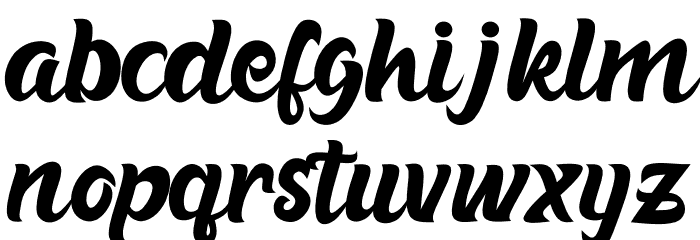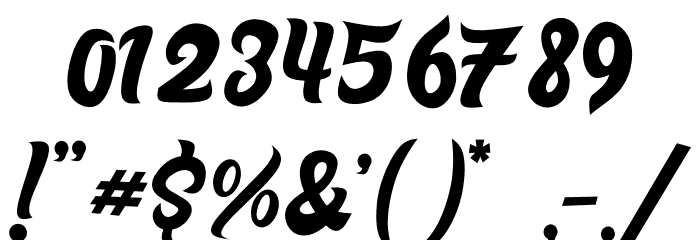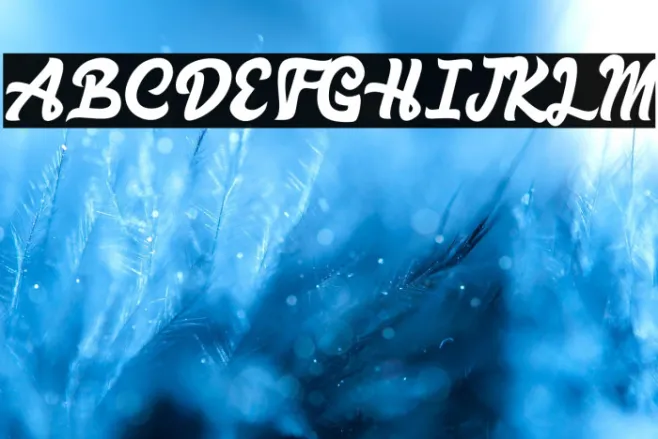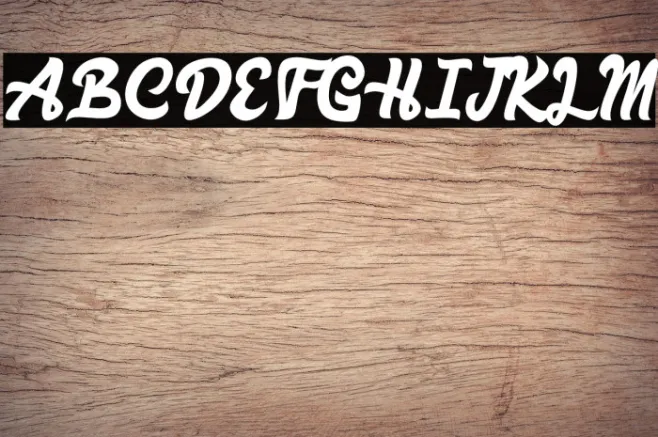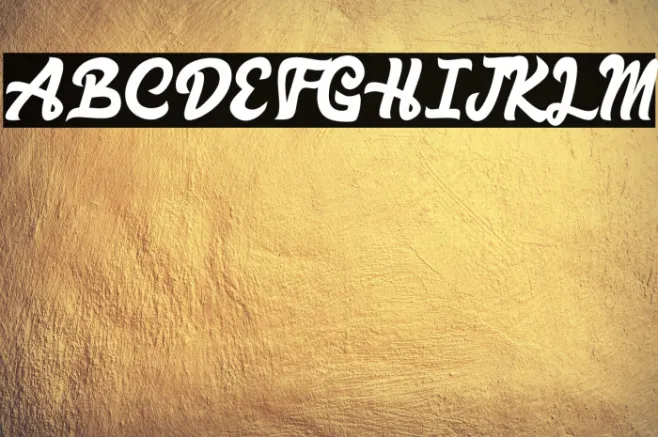
Habisa Font
This font features a bold and dynamic script style with a strong presence. The characters are connected, giving it a fluid and continuous look, reminiscent of traditional calligraphy. The uppercase letters are slightly more elaborate, with sweeping curves and flourishes, while the lowercase letters maintain a consistent flow. The numerals are bold and maintain the same script style, ensuring uniformity across all characters. The special characters are well-integrated, matching the overall aesthetic of the font. This font exudes a sense of elegance and creativity, making it suitable for artistic and expressive designs.
A bold, dynamic script font with a calligraphic style.
- Font: Habisa
- Proposed Projects: Ideal for wedding invitations, greeting cards, branding projects, and artistic posters.
- Category: Script
- Use Case: Logos, Headlines, Artistic designs